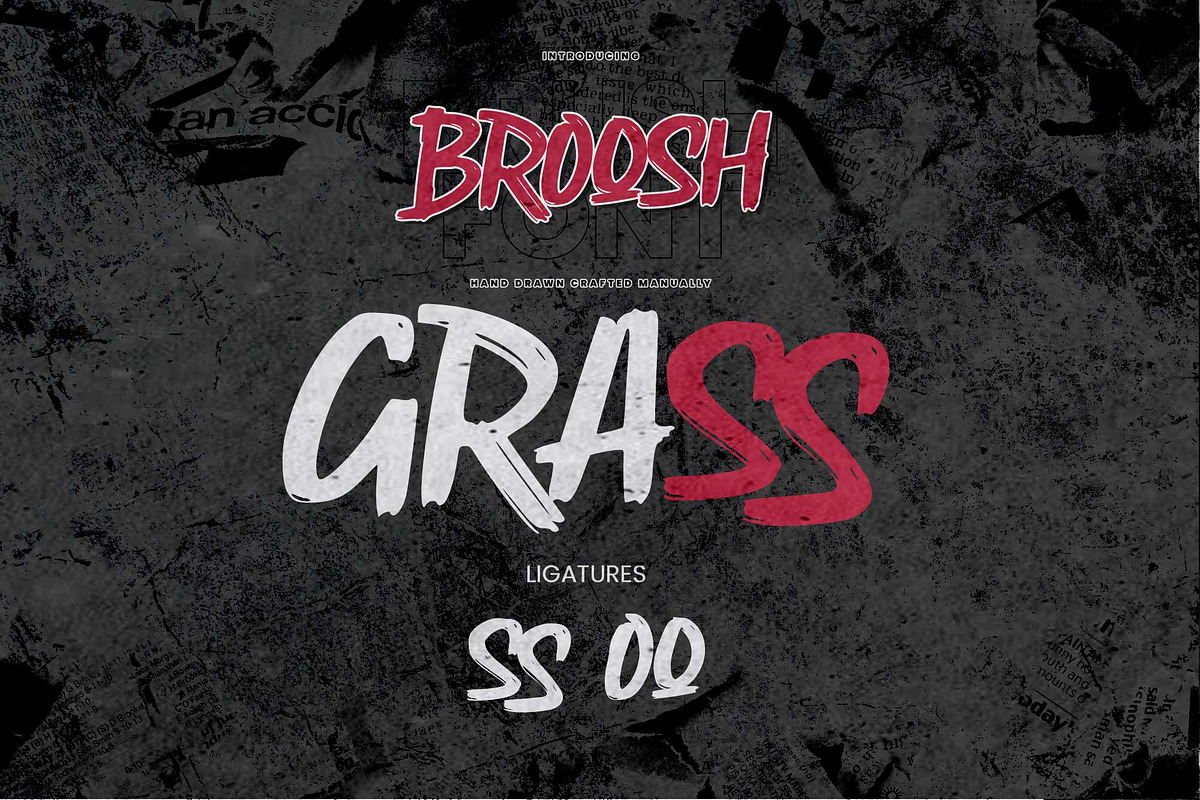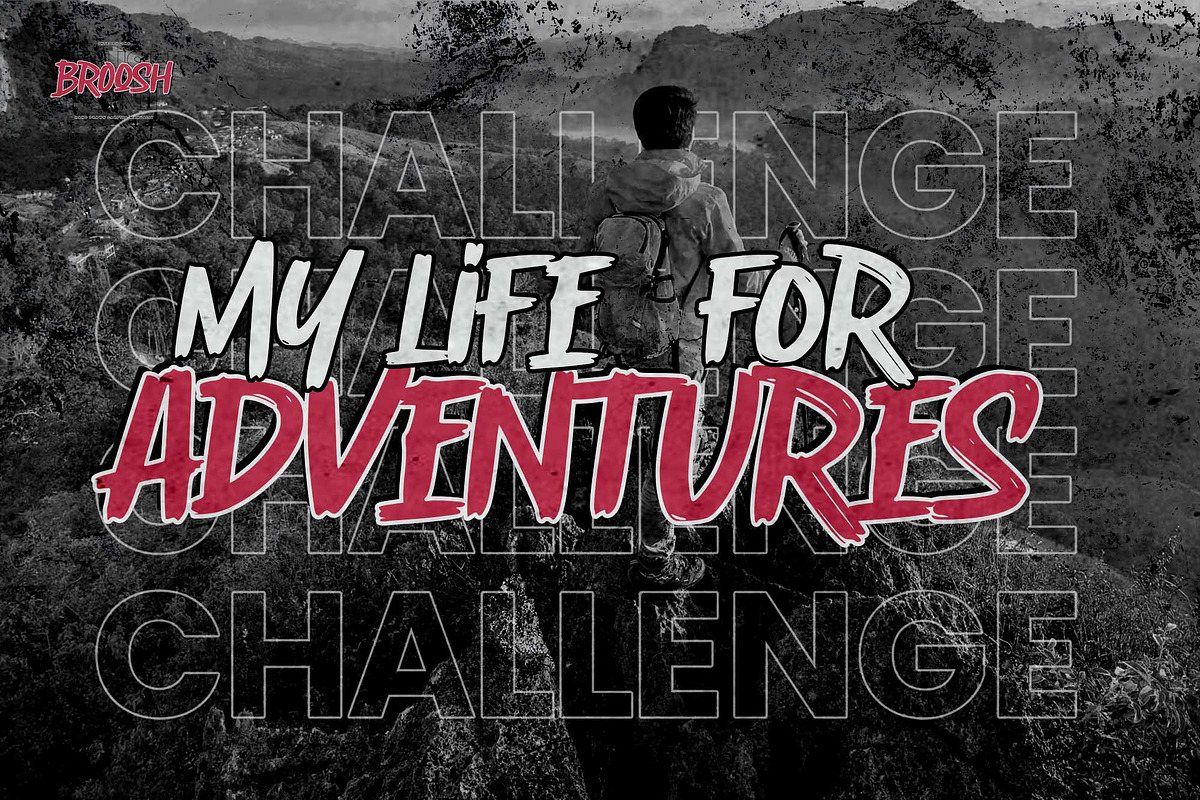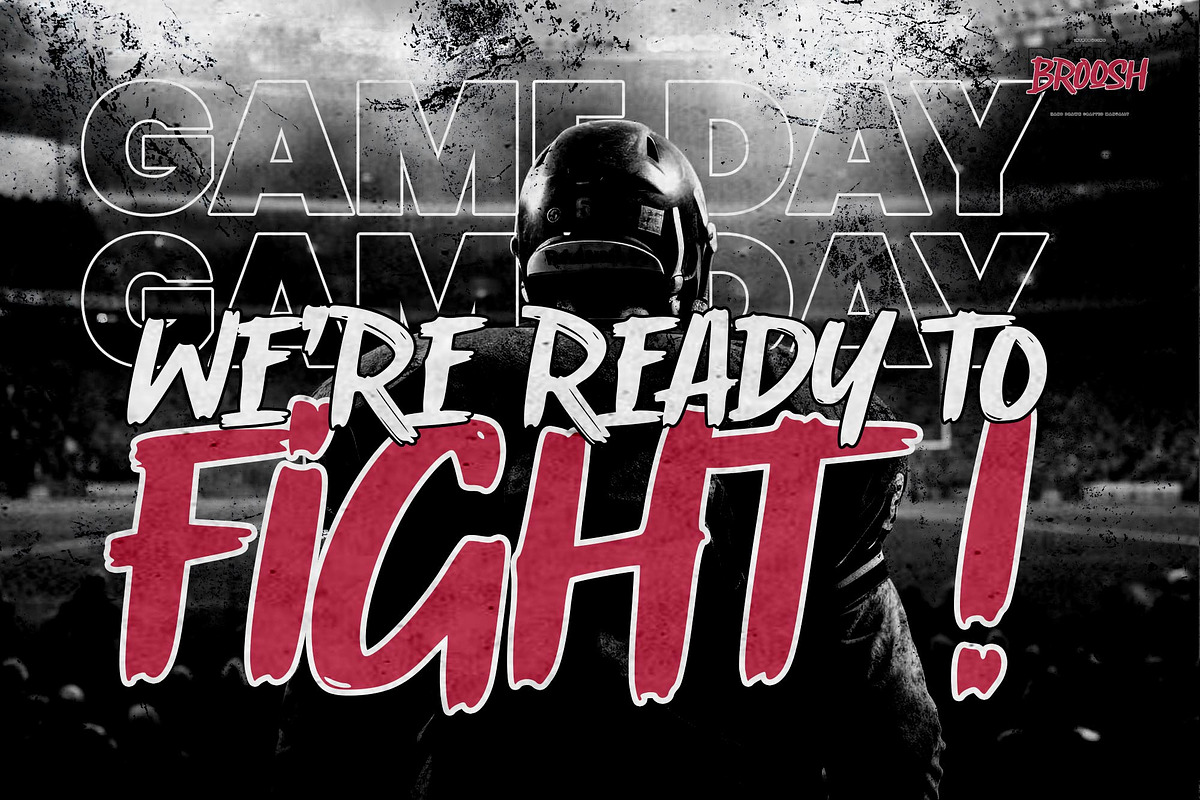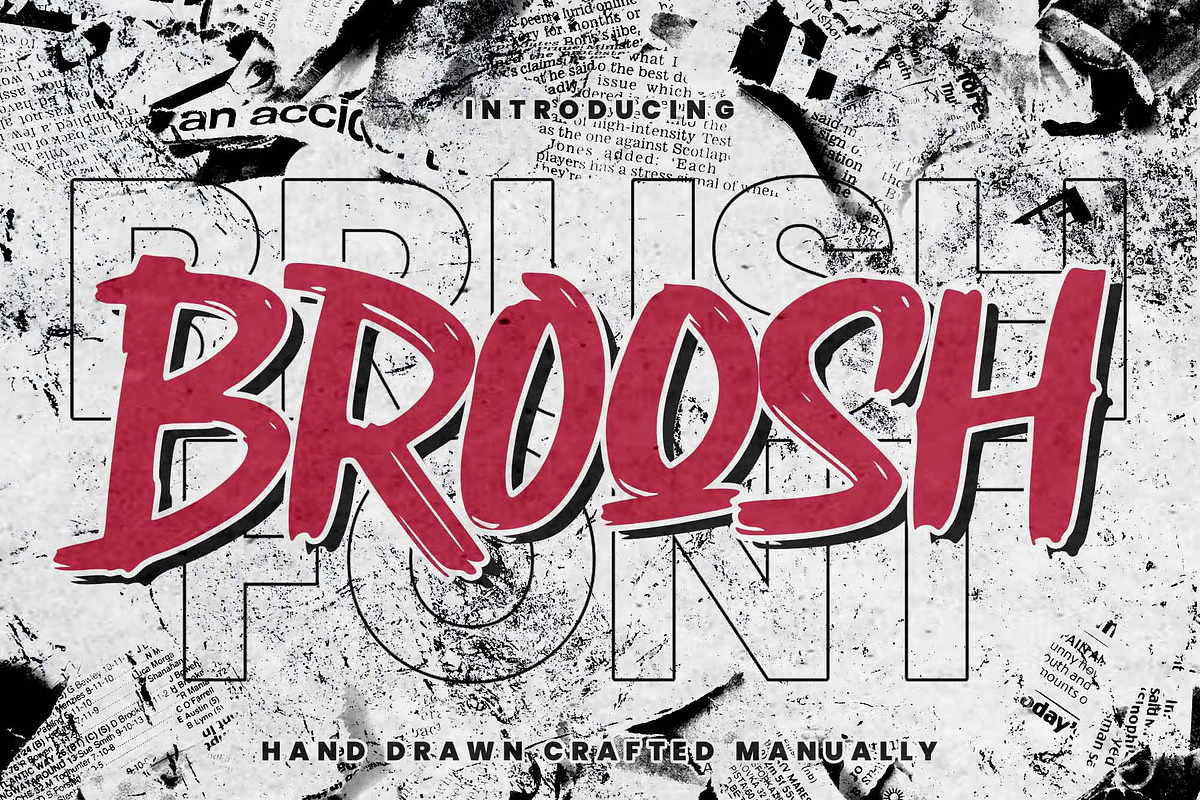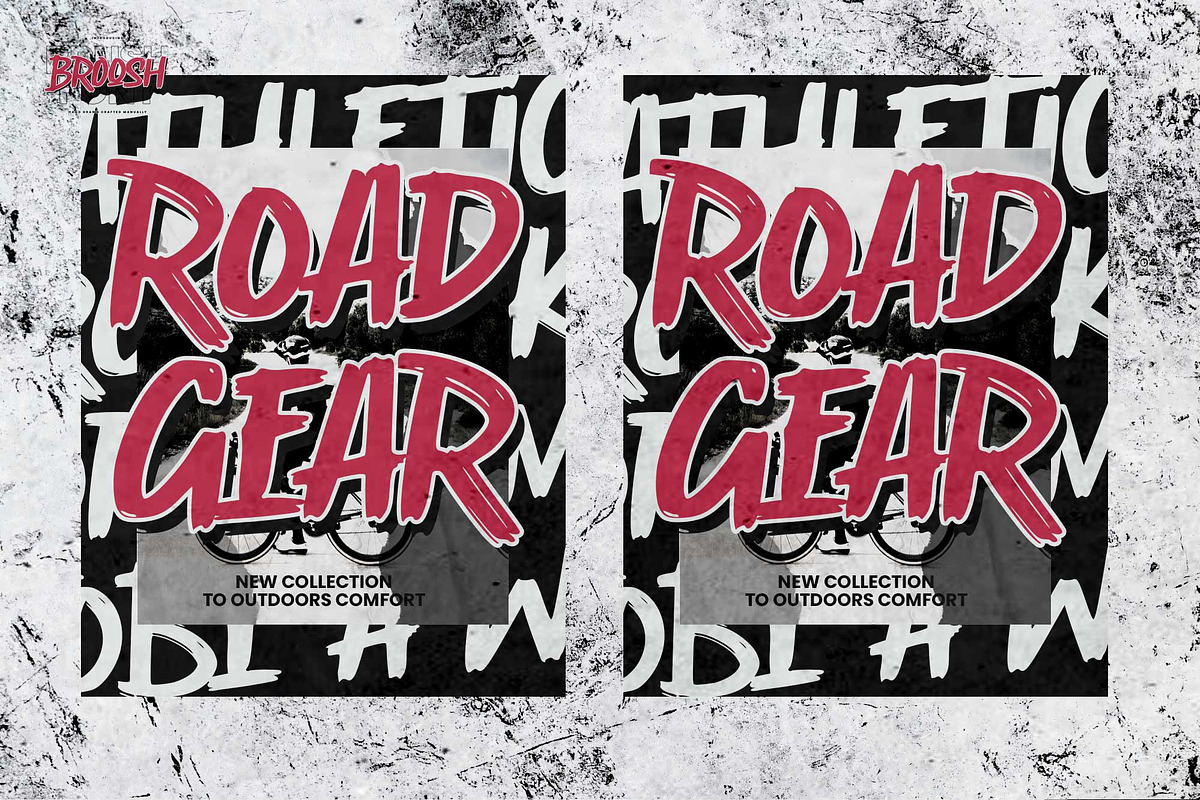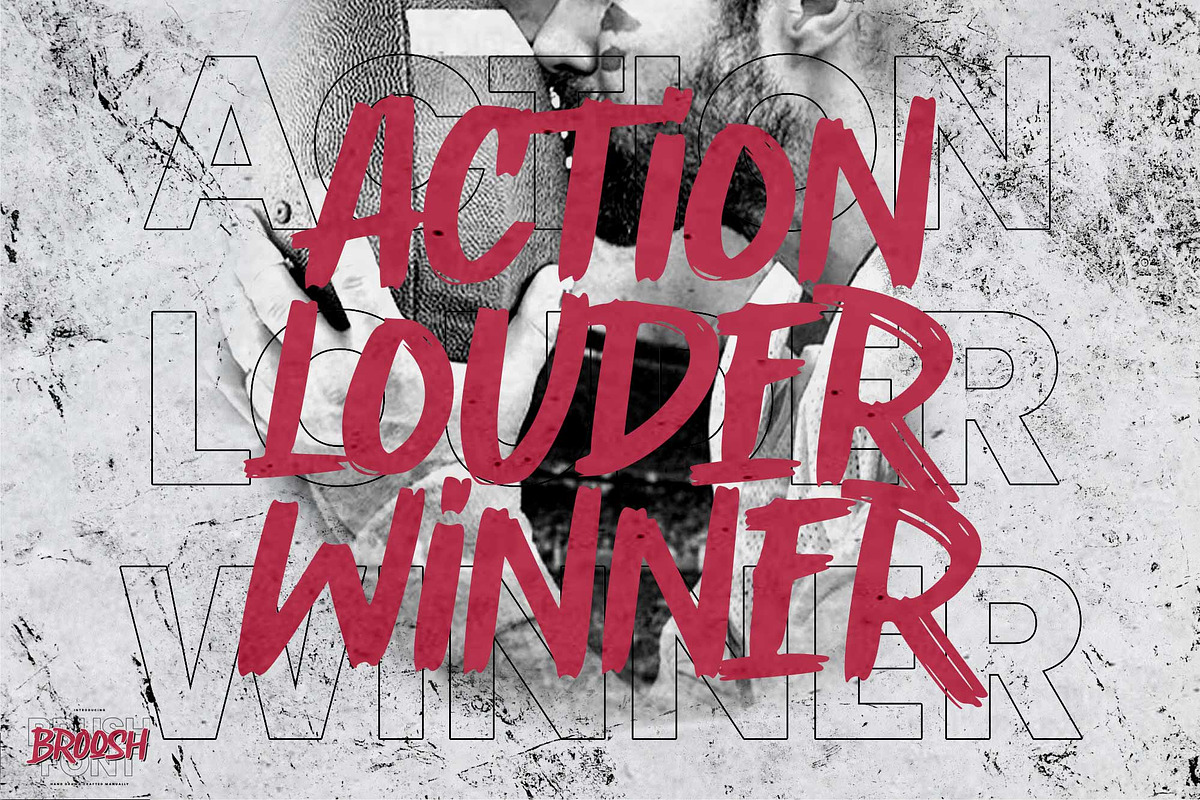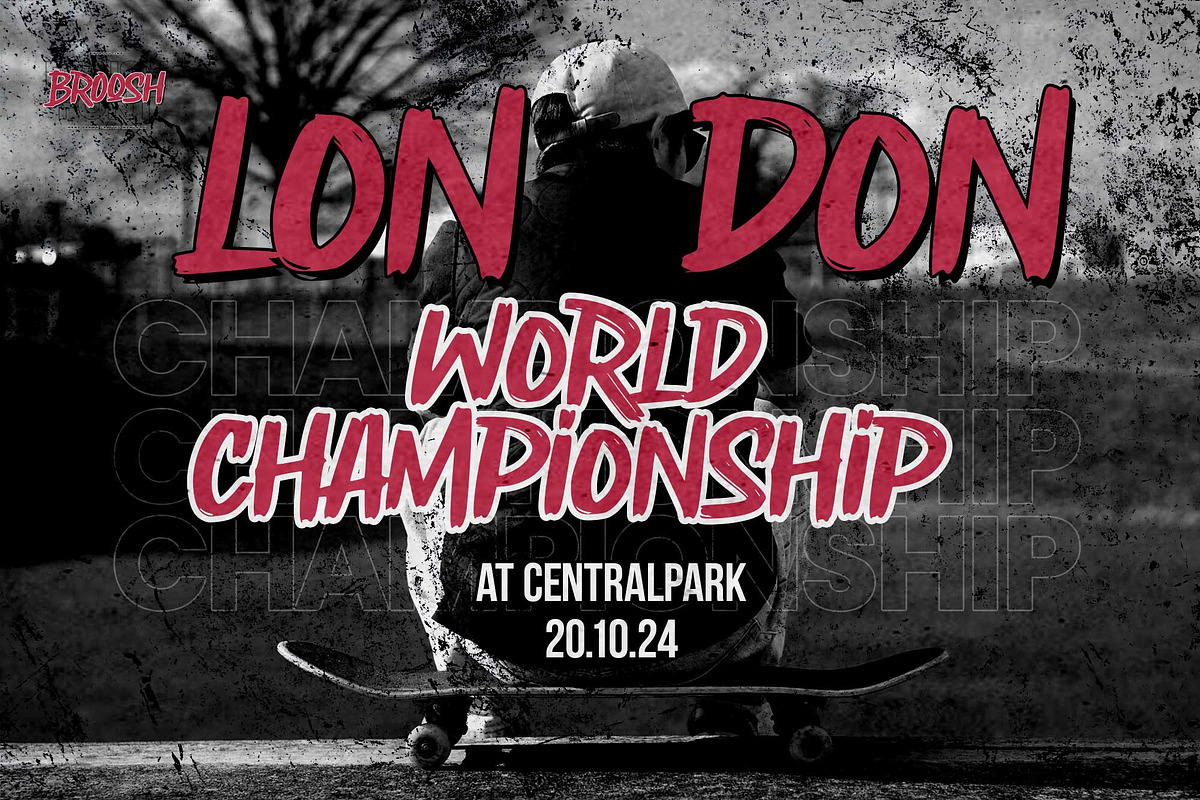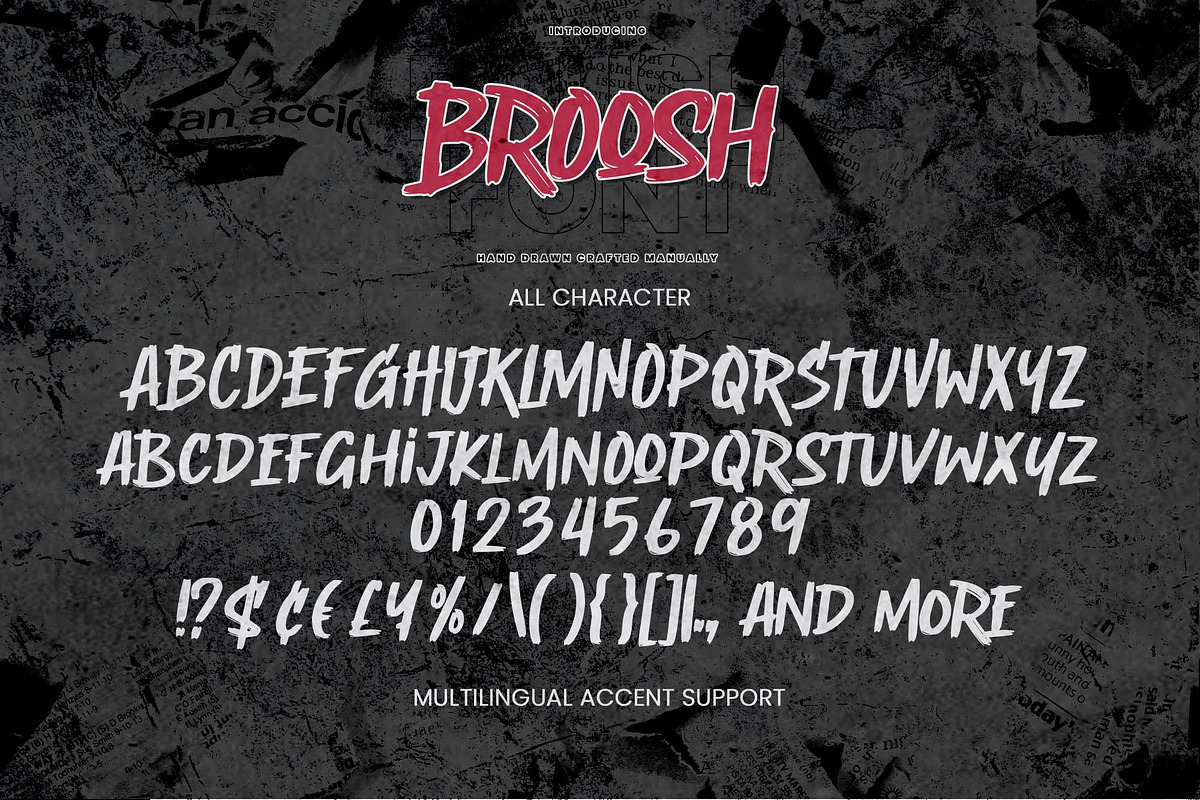
Broosh - Hand Drawn Crafted Manually
Hello Everyone, introduce our new product Font Broosh This Is Hand Drawn Crafted Manually. This is a Textured Natural Brush Style and classy style. This font Broosh is great for your next creative project such as logos, printed quotes, invitations, cards, product packaging, headers, Logotype, Letterhead, Poster, Design this font is great for your creative projects such as watermark on photography, and perfect for logos & branding, invitation,advertisements,product designs, stationery, wedding designs,label ,product packaging, special events or anything that need handwritting taste. That is has charming, authentic and relaxed characteristic more natural look to your text.